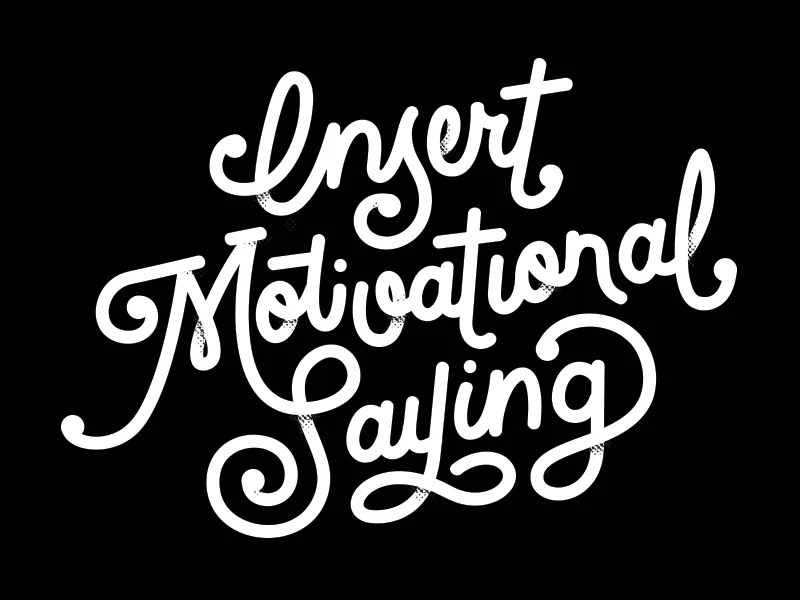
The Power Of Motivational Fonts In 2023
The power of words has been a powerful force for many centuries, and fonts are an essential part of communicating these words. Fonts can be used to convey a range of messages, from the serious to the fun. In recent years, motivational fonts have become increasingly popular, as people seek out ways to inject positivity into their lives. In 2023, motivational fonts are more popular than ever, as they are used to enliven and empower people with encouraging messages.
What Makes Motivational Fonts So Popular?
Motivational fonts are popular due to their ability to inspire and uplift. They use bright, bold colors and unique lettering to emphasize the positive messages they convey. For example, a motivational font might use a combination of script and bold fonts with a cheerful color palette to create a cheerful, uplifting message. These fonts are often used in marketing materials, website designs, and social media posts, as they help to draw attention and create a positive impression on viewers.
How Can Motivational Fonts Benefit You?
Motivational fonts can be used to help you focus on the positive aspects of your life and to stay motivated. When you see words of encouragement in a font that is both visually appealing and easy to read, it helps to remind you of your goals and keeps you motivated to strive for success. Additionally, motivational fonts can be used to create a sense of community, as it’s easier to connect with people over shared positive messages.
What Are Some of the Most Popular Motivational Fonts in 2023?
In 2023, some of the most popular motivational fonts include “Optimistic,” “Dreamer,” “Inspire,” and “Motivate.” These fonts are designed to be easy to read and to evoke a feeling of positivity. Other popular motivational fonts in 2023 include “Hope,” “Courage,” and “Love.” These fonts are often used in marketing campaigns, as they help to create a sense of community and inspire people to take action.
How To Use Motivational Fonts To Your Advantage in 2023?
In 2023, motivational fonts can be used in a variety of ways to help you stay motivated and focused. For example, you can use these fonts in your marketing campaigns, website designs, and social media posts to create a positive impression on viewers. Additionally, you can use motivational fonts in your personal projects, such as writing out a list of goals or creating a vision board, to help keep you inspired and motivated. Finally, you can use motivational fonts in your everyday conversations to help inspire and uplift those around you.